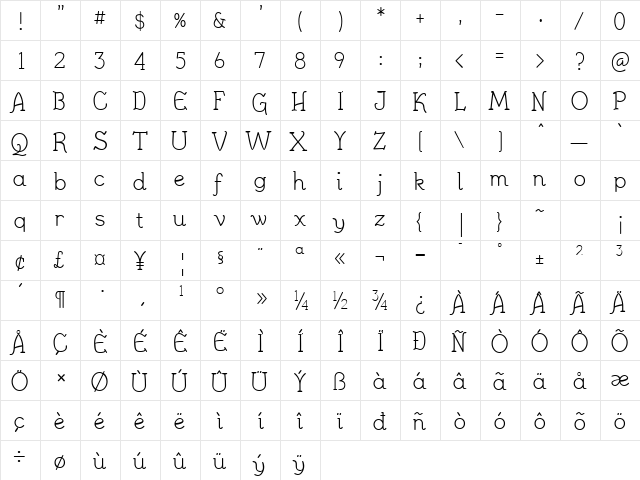
JennerikInfml Plain
Design Context for JennerikInfml Typeface
JennerikInfml is a composed and adaptable typeface that performs quietly and consistently across a wide range of design contexts.